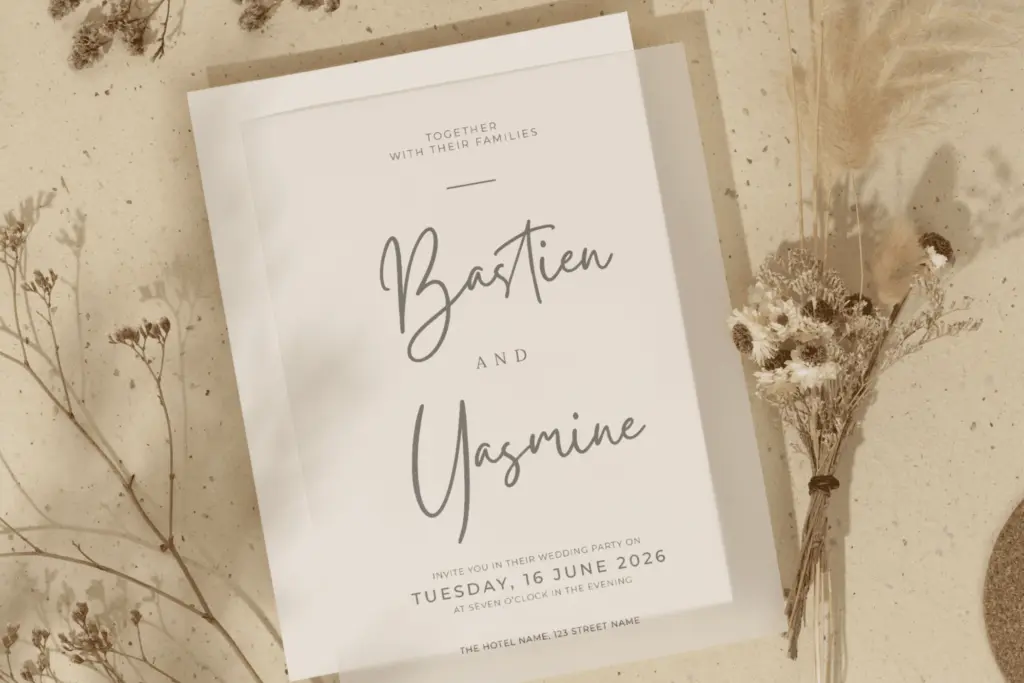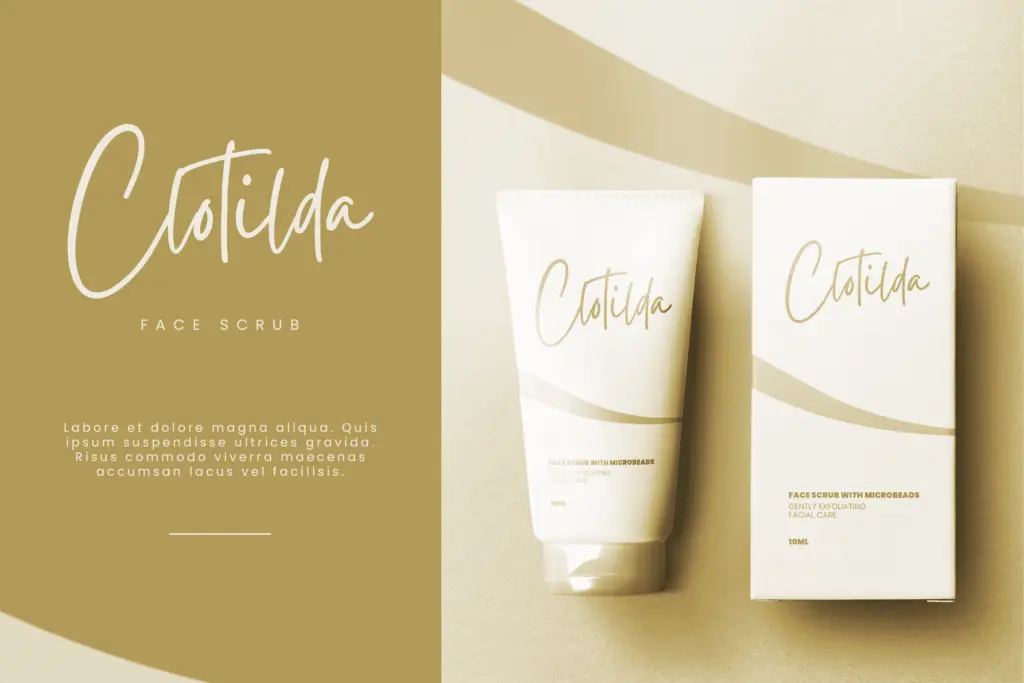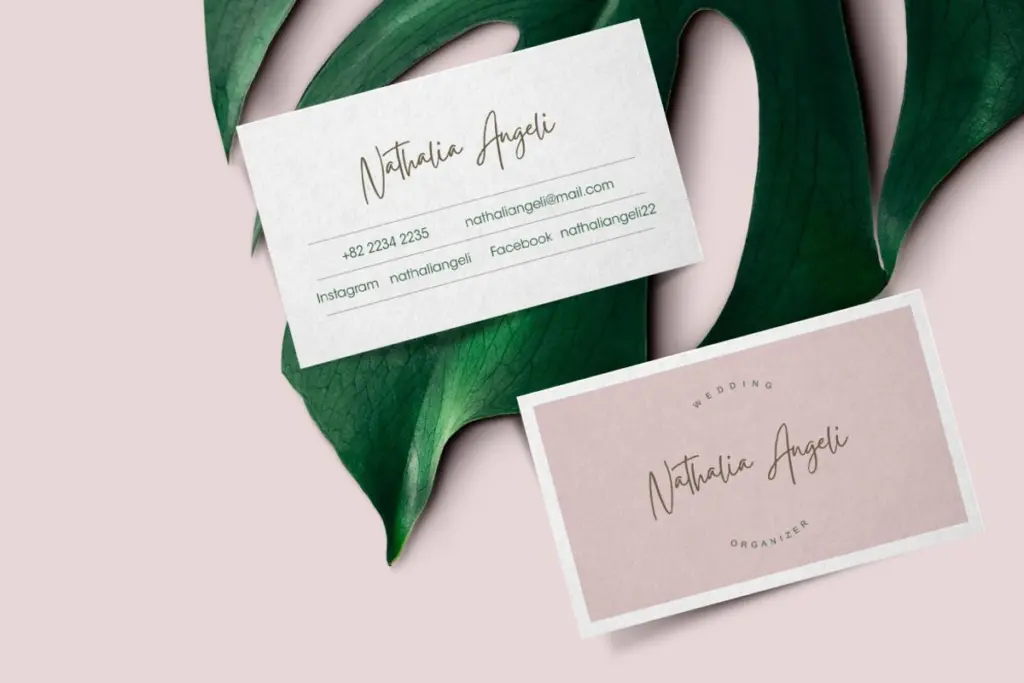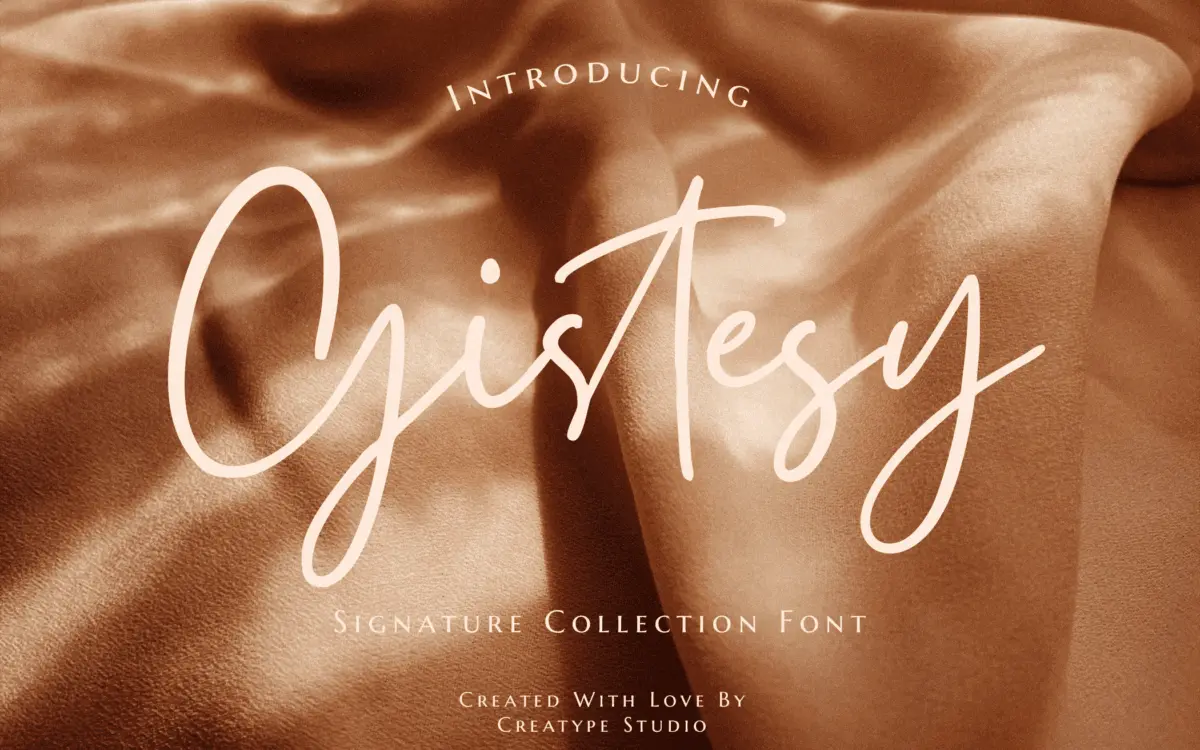
Gistesy belongs to the signature-script family that has become a marketplace staple: a fast, single-stroke cursive built to read like a pen mark rather than a formal calligraphic hand. The letters lean forward with a consistent slant, joins are loose, and the baseline dips and rises slightly from letter to letter, which is what gives it its “natural movement” claim. It’s a lighter, more casual take than a copperplate or a broad-nib script — closer to someone signing their name quickly than someone writing a wedding vow.
The stroke weight stays fairly even throughout, without the dramatic thick-to-thin contrast you’d get from a pointed-pen script. That makes it feel more contemporary and less bridal than a lot of the scripts it gets grouped with, though it also means it has less drama at large display sizes. It’s a font that works by suggestion — a quick flourish here, a raised crossbar there — rather than by ornament.
The package covers standard glyphs plus ligatures, which matter more than usual in a script like this: without them, repeated letter pairs and awkward joins would break the illusion of continuous handwriting. PUA encoding means the ligatures and alternates are reachable through a glyph panel or character map without needing OpenType-aware software, which is a practical inclusion given how many buyers of fonts like this are working in Word or Canva rather than Illustrator.
Language support covers a solid run of Western and Central European languages — Afrikaans through Swedish — so accented characters in French, German, Polish or Scandinavian text should render correctly rather than falling back to a default glyph. There’s no indication of small caps, an italic companion, or a serif pairing bundled in; this is a single script weight doing one job.
At logo and wordmark size, Gistesy does what it’s built to do: a short business name or a first-and-last-name signature reads cleanly and has some personality without tipping into illegibility. It suits the kind of branding work the seller lists — packaging labels, product tags, watermark signatures on photography, social posts where a few words need to feel personal rather than corporate.
It’s less suited to long-form use. Set it across a full sentence or a paragraph of invitation copy and the loose joins and rising baseline start to work against reading speed — fine for a single line of a save-the-date, harder going for body text on a menu or program. Pair it with a plain sans or serif for supporting text rather than asking it to carry a whole layout.
Given the crowded field of signature scripts on marketplaces, Gistesy doesn’t reinvent the genre, but it’s a competent, well-specified entry: ligatures, PUA access, and reasonable multilingual coverage make it usable out of the box rather than needing extra glyph-hunting.
- Ligatures smooth over awkward letter joins that would otherwise break the handwriting illusion
- PUA encoding means alternates are reachable without OpenType-aware software
- Even stroke weight keeps it feeling contemporary rather than overtly bridal
- Loose joins and a rising baseline slow reading once you go past a single line
- Lacks the contrast or flourish that would give it presence at large display sizes
Gistesy is a competent signature script that does short-line branding work well but struggles past a sentence. It's not distinctive within its genre, but the ligature set and PUA encoding make it easy to use straight away.